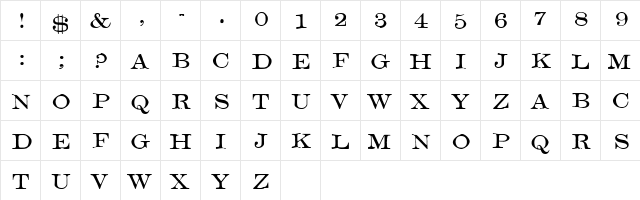
Mercantile Card HPLHS
Design Context for Mercantile Card Typeface
Mercantile Card is a composed and adaptable typeface that performs quietly and consistently across a wide range of design contexts.